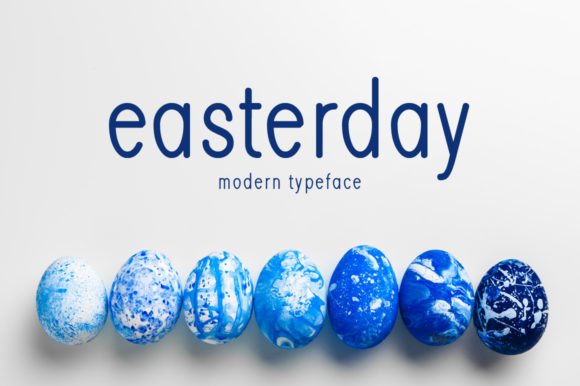
The Perfect Blend of Elegance and Sophistication
Imagine yourself sitting at your desk, surrounded by scattered papers, empty coffee cups, and the faint glow of your computer screen. You’re in the zone, and the words are flowing – but something’s missing. You need the perfect font to elevate your design and make it truly shine. That’s where the Easterday Font comes in, a stylish and modern display font that adds a touch of sophistication to any project.
Designed to make a statement, Easterday Font is more than just a pretty face. Its well-balanced weight distribution and carefully adjusted alternates and ligatures create a harmonious visual experience that’s sure to impress. Whether you’re working on a branding project, creating a promotional campaign, or simply looking to add some flair to your personal design portfolio, Easterday Font is an invaluable asset for designers looking to take their work to the next level.
Easterday Font Key Features
- Font Family: Easterday is a modern sans-serif font family, designed for digital use.
- Unique Characteristics: Easterday Font features a unique geometric design with clean lines, rounded edges, and a friendly feel, making it perfect for modern branding and digital design.
- Font Pairing: Easterday Font is designed to pair well with other modern sans-serif fonts, such as Open Sans, Lato, and Montserrat, making it a versatile choice for digital designers.
Easterday Font Review
Overall, I found the Easterday Font to be an interesting addition to the world of typography. Let’s dive into what I think works well and where it falls short.
✨ One of the strengths of Easterday is its unique and quirky aesthetic. The font has a playful feel that’s perfect for projects where you want to convey a sense of whimsy or nostalgia.
✨ I also appreciate the variety of weights and styles available, making it a versatile option for designers. Whether you’re looking for a bold, statement-making font or a more subtle, elegant look, Easterday has got you covered.
- ⚠️ The font can feel a bit overpowered in smaller text sizes, which may make it difficult to read in certain contexts.
- ⚠️ Additionally, the font’s quirky aesthetic may not be suitable for all types of projects or audiences, so it’s essential to consider your target audience before using it.
Overall, I think Easterday Font is a great option for designers looking for a unique and playful font. While it may have some limitations, its strengths make it a valuable addition to any designer’s toolkit.
1. Use the Easterday Font for titles and headings to add a touch of elegance to your design.
2. Pair the Easterday Font with a simple sans-serif font for body text to create a clean and modern look.
3. Experiment with different font sizes and colors to create a unique and eye-catching design.
1. Wedding invitations and stationery
2. Business cards and marketing materials